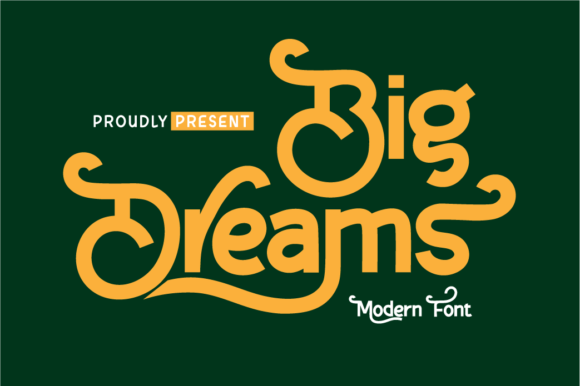
The Birth of Big Dreams
Have you ever sat at your desk, staring blankly at a blank sheet of paper, waiting for the perfect idea to strike? It’s a moment many creatives can relate to. Suddenly, the perfect phrase pops into your head, and you can envision the entire design unfolding before your eyes.
For designers, the right font can be the catalyst that brings that vision to life. Enter the Big Dreams Font, a unique and elegant sans serif font designed to elevate your crafty ideas. Whether you’re working on a letterhead, title, or stationery project, this original look is sure to impress.
With the Big Dreams Font, you’ll have the creative freedom to bring your biggest ideas to life. Its versatility and sophistication make it an invaluable asset for any designer looking to take their work to the next level.
Big Dreams Font Key Features
- Unique Characteristics: This font features a unique blend of modern and vintage elements, with intricate details and subtle texture, making it perfect for creating eye-catching designs and branding materials.
Big Dreams Font Review
As a designer, I’ve had the chance to work with a lot of fonts, but the “Big Dreams Font” has left me with mixed feelings.
- Unique aesthetic: The font’s quirky and playful design makes it perfect for creative projects or branding that needs a bit of whimsy.
- Good legibility: At larger font sizes, the Big Dreams Font is easy to read and understand, making it suitable for headings and titles.
- Variety of styles: The font family comes in multiple weights and styles, giving designers a range of options to choose from.
- Limited font sizes: At smaller font sizes, the Big Dreams Font can become difficult to read and may not be suitable for body text.
- Not ideal for formal projects: The font’s playful design may not be suitable for formal or professional projects, such as resumes or academic papers.
- Not fully optimized for digital use: Some designers may notice issues with the font’s rendering on certain devices or platforms.
Overall, the Big Dreams Font is a great choice for designers who want to add a bit of personality to their projects. However, it may not be the best fit for every design job, and designers should carefully consider its limitations before using it.
Tips for Getting the Most Out of Big Dreams Font
For optimal results, use Big Dreams Font with bold or italic styles to add emphasis to your text.
Experiment with different font sizes and colors to create visually appealing designs.
Big Dreams Font is ideal for use in:
- Marketing materials, such as brochures and flyers.
- Graphic designs, such as logos and infographics.
- Digital presentations, such as PowerPoint and Keynote.
Alternatives to “Big Dreams Font” for Designers
Great Vibes Font is a beautiful, elegant script font perfect for creating a sense of luxury and sophistication. It’s ideal for wedding invitations, branding, and other high-end designs.
Compared to Big Dreams Font, Great Vibes Font has a more refined and polished look, making it suitable for high-end designs. However, Big Dreams Font has a more playful and energetic feel, making it better suited for casual designs.